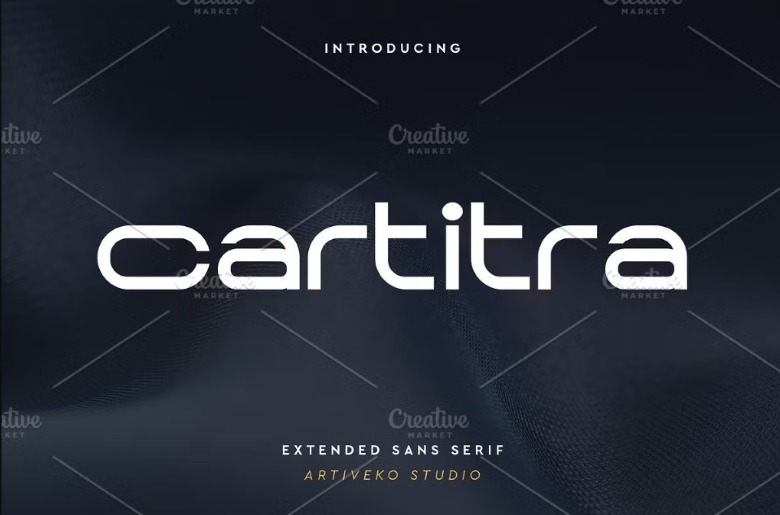
Cartitra Font
Cartitra is a modern sans serif font type face, these font style was designed by Iwan Alwan. It offers different styles between the upper and the lower case making it suitable for different tasks undertook. Powered by multilingual support, it applies to kinds of station such as magazine, business cards, poster, and etc.
Due to its sleek look and highly professional and modern feel it is an ideal choice for dramatic graphic designs. This fonts are perfect for product logo, wedding card logo, clothing brand logo, Vintage design and many others.
Cartitra Sans Serif Logo Font